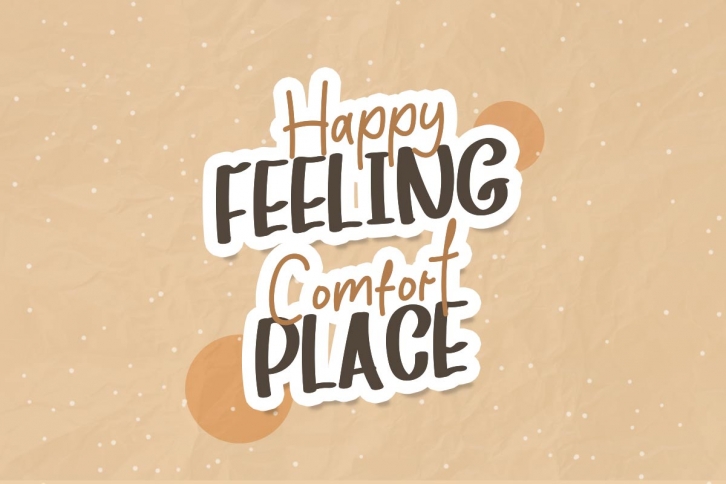
Lets go to Farmhouse is a Handwritten Font duo that having a fun and happy concept, if you want to give your project fun and happy concept, you must try this one !
This font is suitable for your project such us invitation, apparel, instagram or facebook content, brochure and many more